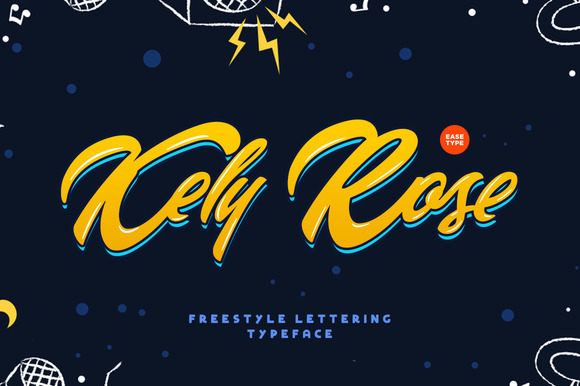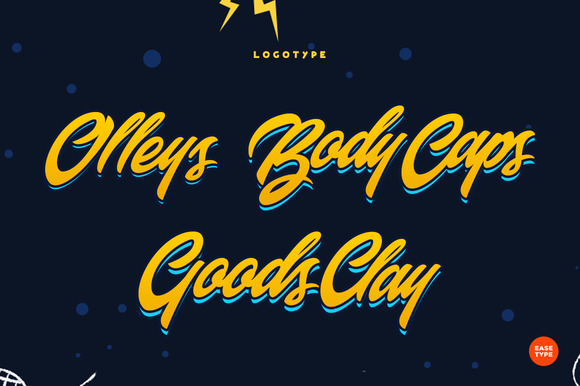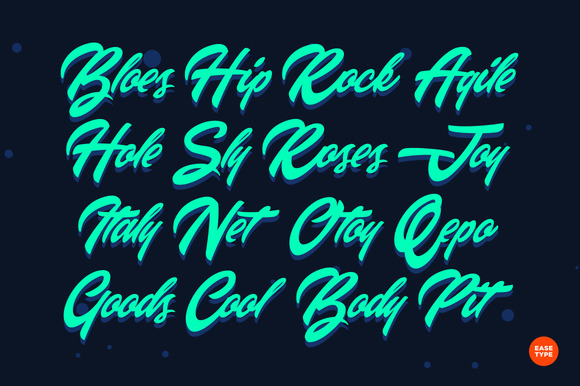
Kely Rose Font
About Kely Rose Font
Kely Rose is a handlettered font that works on many levels.
The almost tropical design will give you lots of opportunities to use this type in many types of projects.